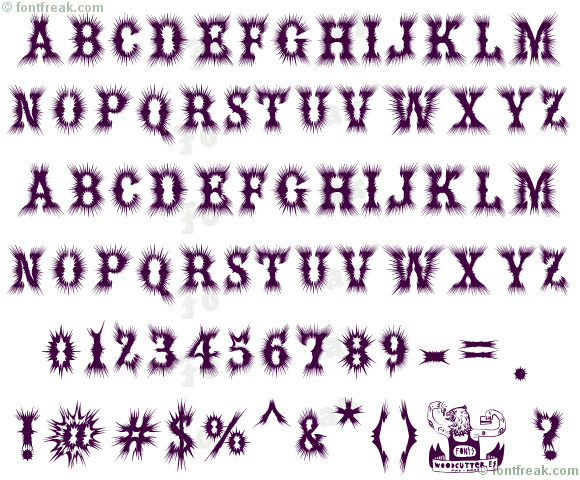
Hell Bar
Hell Bar by woodcutter Manero is a striking display font that falls into the decorative typeface category. This font is characterized by its unique, jagged edges and sharp, spiky forms that evoke a sense of intensity and drama. The stroke weight varies throughout the characters, creating a sense of movement and energy that draws attention. The high contrast between thick and thin lines adds to its visual impact, while the spacing is designed to enhance legibility despite its bold design.
This font is ideally suited for a variety of creative projects. It can be effectively used for attention-grabbing movie posters, where its dramatic flair can evoke excitement and intrigue. Additionally, Hell Bar works well for music album covers, particularly in genres that embrace edgy or alternative aesthetics. This font is also a great choice for themed events, such as Halloween parties or horror movie screenings, where its distinctive style can set the appropriate mood. Small business owners in creative sectors, like tattoo shops or niche restaurants, can leverage Hell Bar for their branding materials to convey a unique identity.